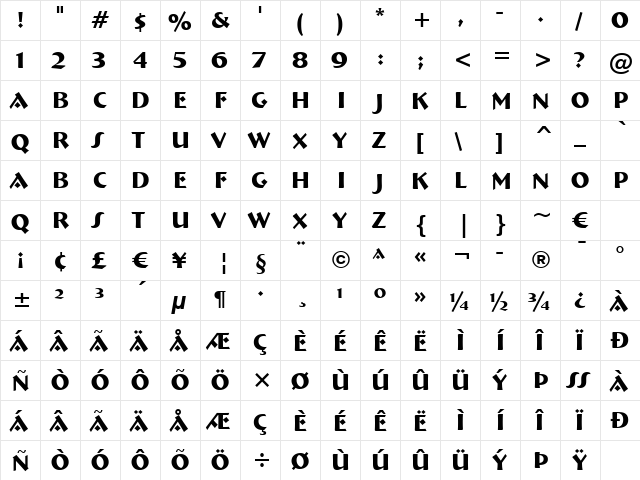
ft92 Bold Font Preview
ft92 Bold
ft92 Bold Font Details
Design Context for ft92 Typeface
ft92 is a composed and adaptable typeface that performs quietly and consistently across a wide range of design contexts. Its bold stroke weight gives it real presence on the page.